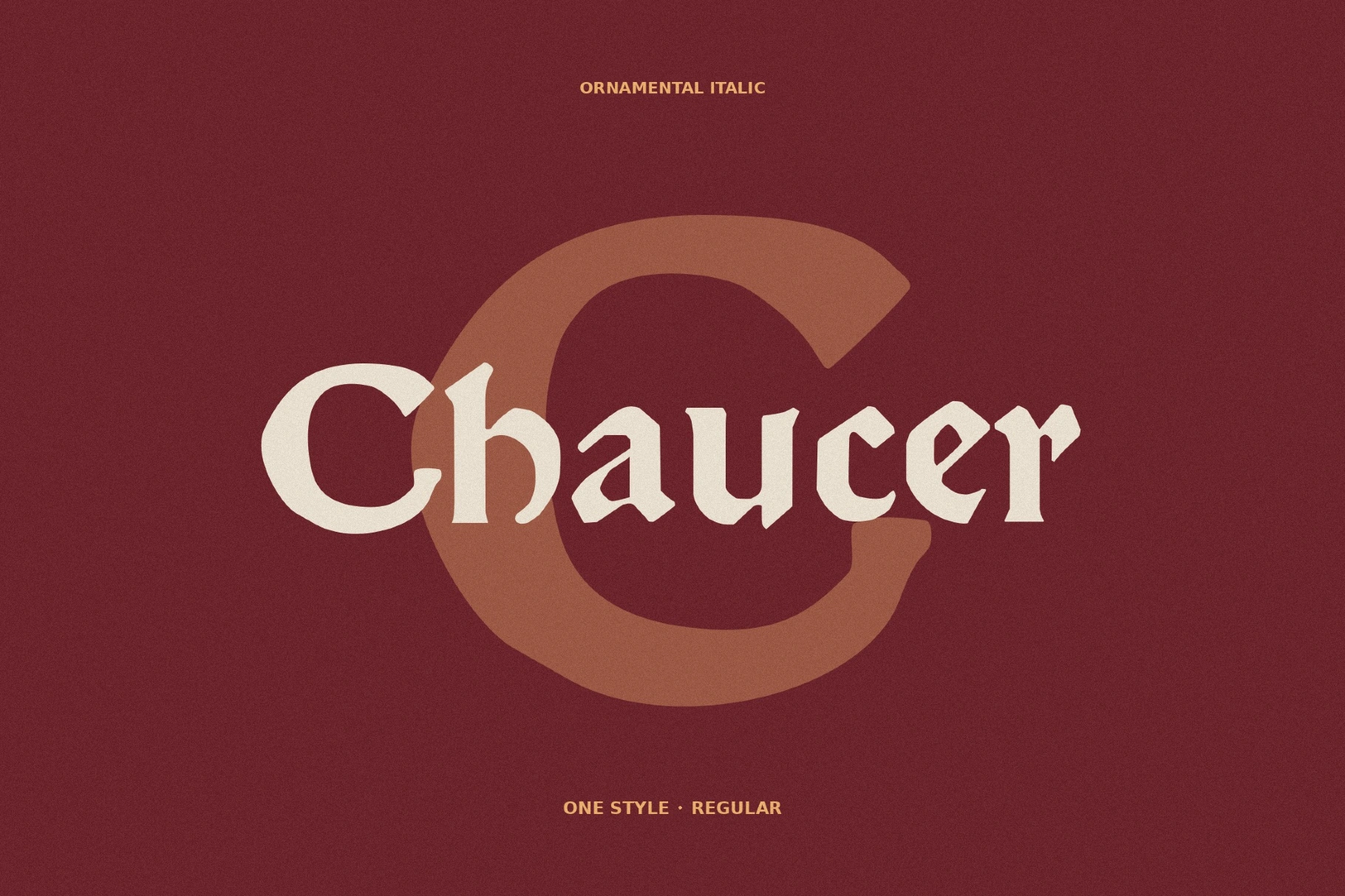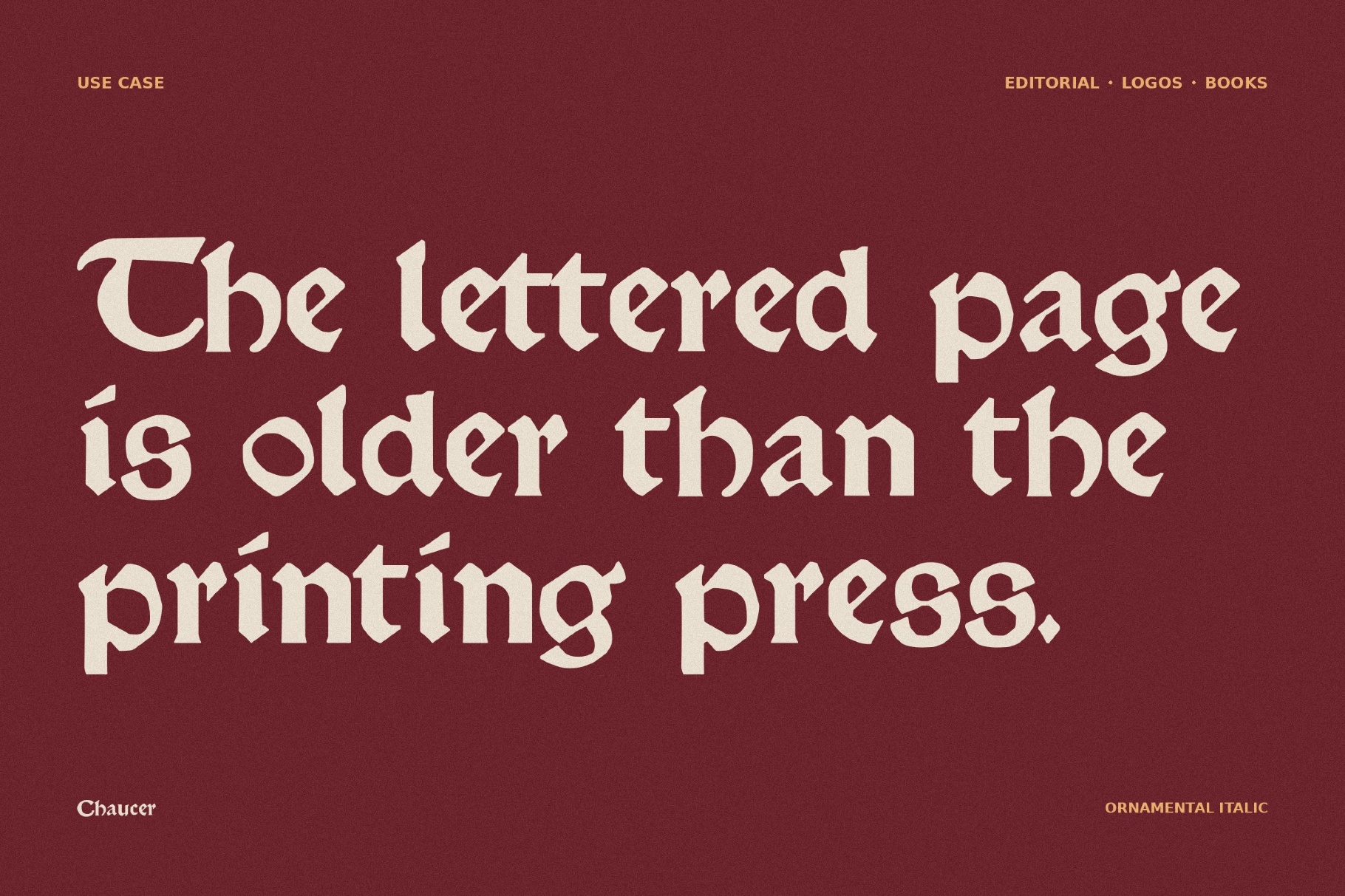
Chaucer - Medieval Book Font
Chaucer
A manuscript mood sits at the center of Chaucer, shaped by blackletter tradition but softened into a readable medieval book hand. The scholarly and quietly dramatic forms are especially useful for classic literature covers, museum graphics, heritage branding, fantasy maps, theater programs, academic posters, ceremonial invitations, exhibition materials, and editorial titles.